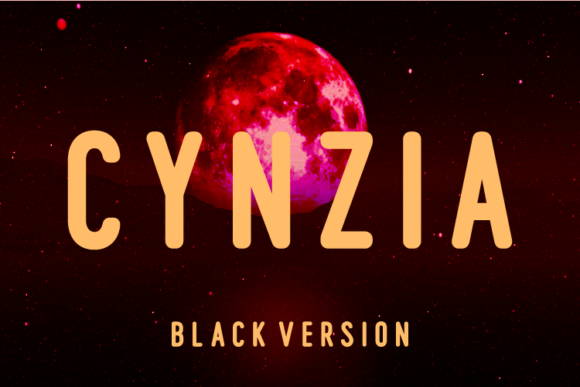
The Perfect Balance of Softness and Sharpness: Unveiling the Cynzia Black Font
Have you ever been stuck on a design project, unable to find the perfect font to bring your vision to life? I know I have. It’s like searching for a needle in a haystack, until one day, you stumble upon the perfect match. For designers, finding the right font can make all the difference between a mediocre design and a stunning one. And that’s where the Cynzia Black Font comes in – a game-changing, condensed geometric sans serif that’s about to revolutionize your design process.
This elegant font, with its rounded corners reminiscent of a moon, is not just a pretty face. It’s a powerhouse of versatility, delivering both subtle softness and a sharper appearance in a wide range of designs. Whether you’re a seasoned pro or a design newbie, the Cynzia Black Font is a valuable addition to your toolkit, guaranteed to elevate your designs and take your creativity to new heights.
Cynzia Black Font Key Features
- Font Style: Bold, Condensed, Sans-Serif
- Character Set: Latin, Cyrillic, Greek, and more (supporting over 200 languages)
- Unique Characteristics: Distinctive, modern design; perfect for titles, headings, and bold text; great for creating a sense of drama and sophistication
Cynzia Black Font Review
Overall, I’m quite impressed with the Cynzia Black Font. It’s a clean and modern sans-serif typeface that’s perfect for headlines and titles. ✨
- Modern and sleek design that’s great for contemporary projects
- Elegant and sophisticated feel, perfect for luxury or high-end branding
- Well-suited for use in digital and print media
One of the standout features of the Cynzia Black Font is its versatility. It’s a great choice for a wide range of projects, from fashion and beauty to technology and finance.
- Not ideal for body text, as it can be difficult to read in smaller sizes ⚠️
- May not be suitable for projects that require a more playful or informal tone
- Not as extensive a character set as some other fonts, which may limit its use in certain contexts
Overall, I’d give the Cynzia Black Font 4 out of 5 stars. It’s a great choice for projects that require a modern and sophisticated look, but may not be the best fit for every situation.